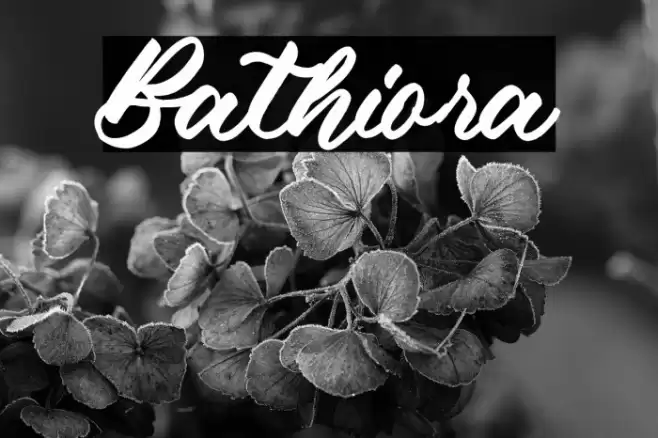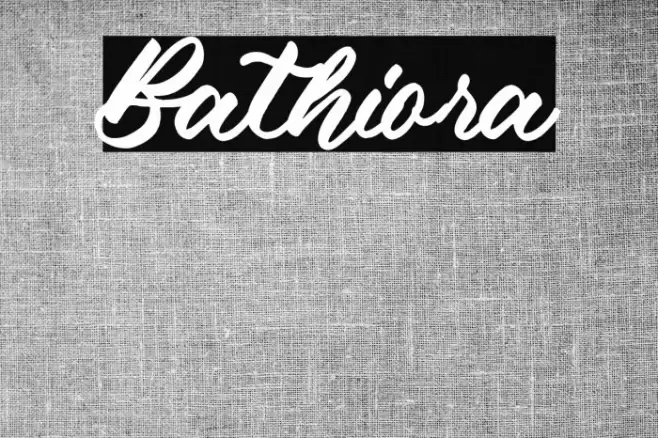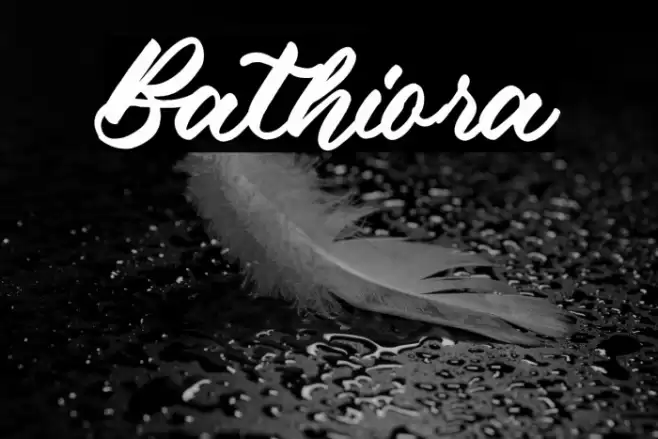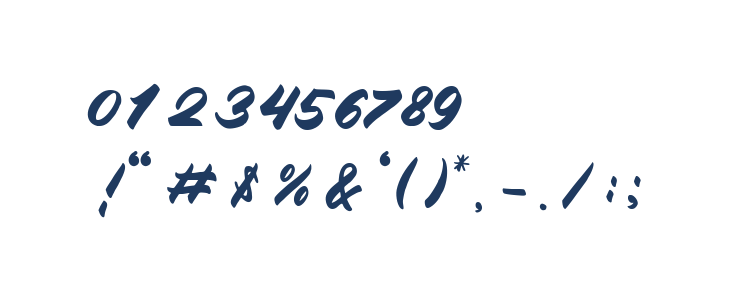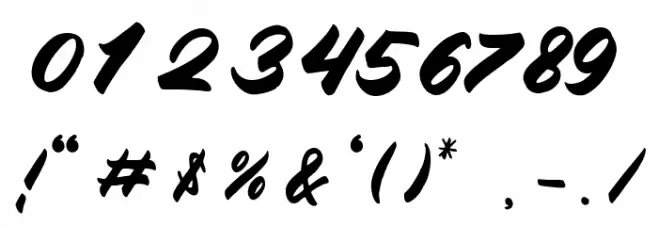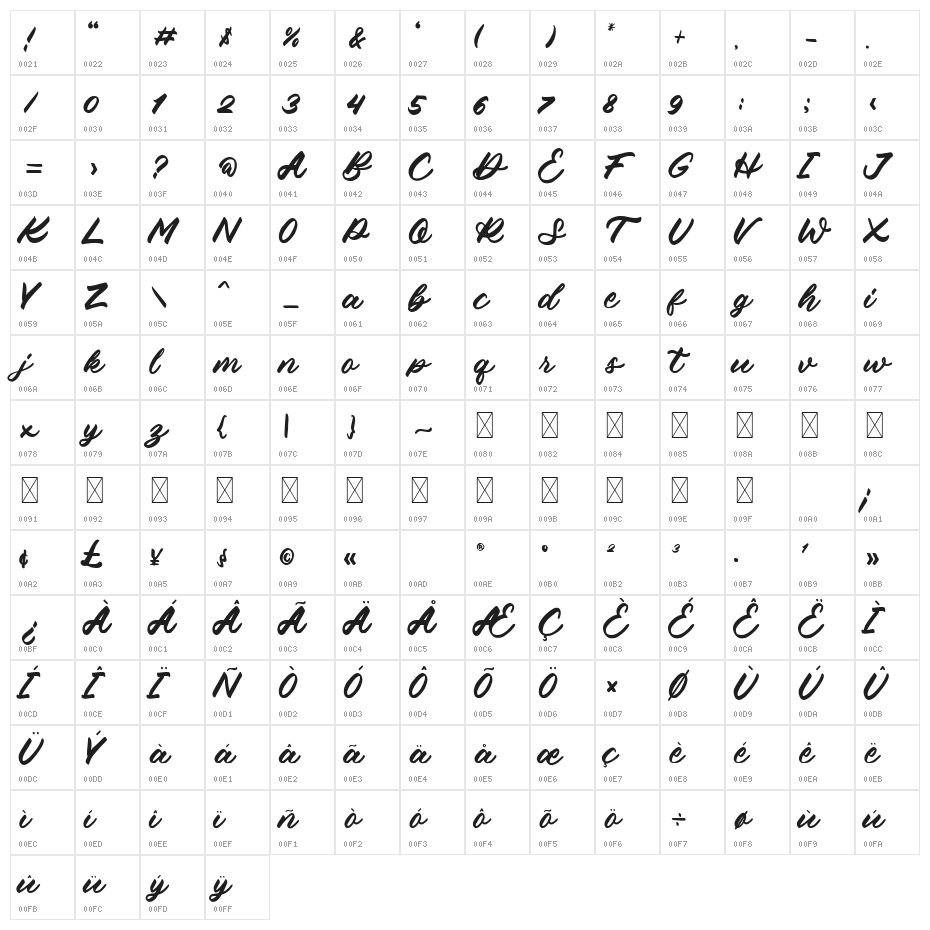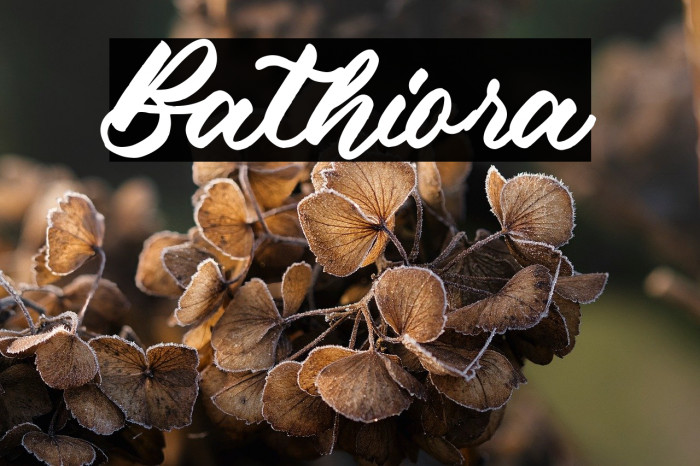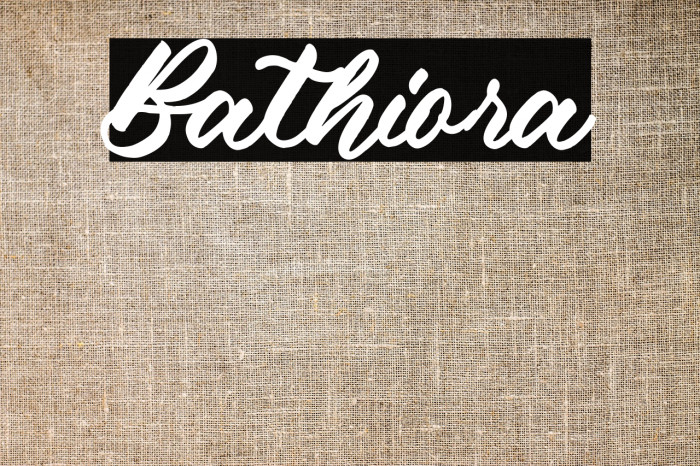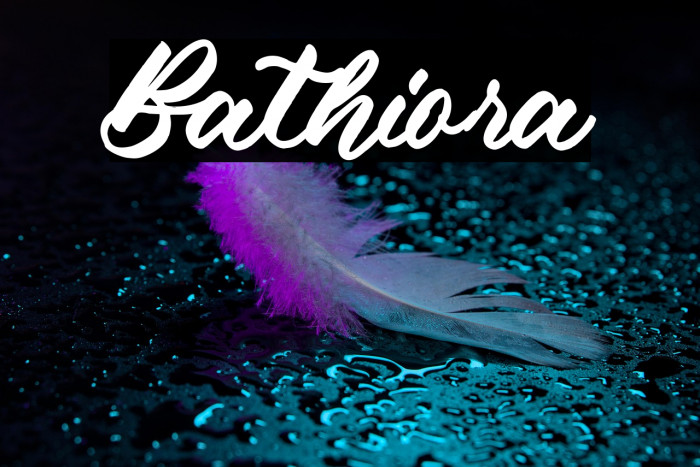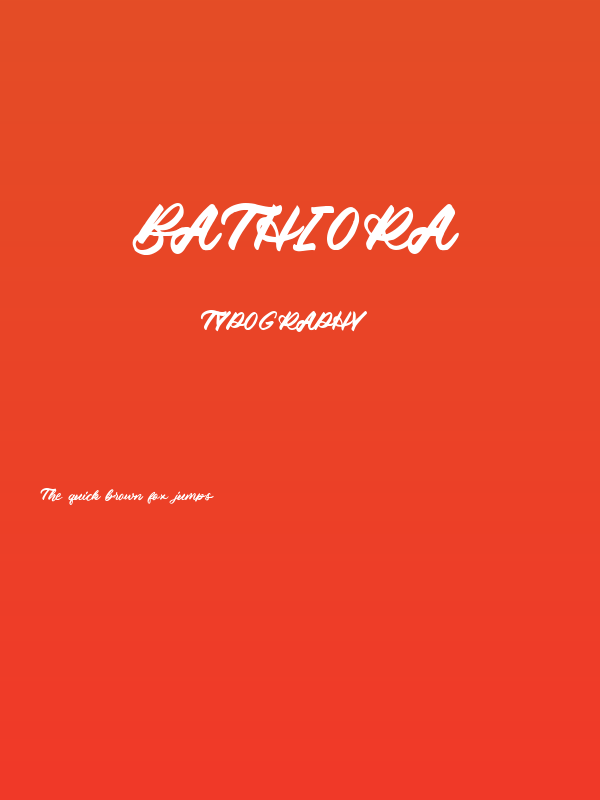
Bathiora Font
Bathiora Description
This font features a bold and flowing script style, characterized by its smooth, cursive strokes that connect seamlessly between letters. The uppercase letters exhibit a dynamic and elegant flair, while the lowercase letters maintain a consistent rhythm and fluidity. The numerals are distinct and maintain the script's cohesive style, ensuring readability. Special characters are integrated with the same artistic touch, making them suitable for creative and decorative uses. The overall design exudes a sense of sophistication and creativity, ideal for projects that require a personal and artistic touch.
A bold, flowing script font with elegant, cursive strokes from Regular fonts.
- Proposed Projects: Ideal for wedding invitations, greeting cards, branding, and artistic projects.
- Character Spacing: Tight
- Use Case: Logos, Invitations, Decorative text